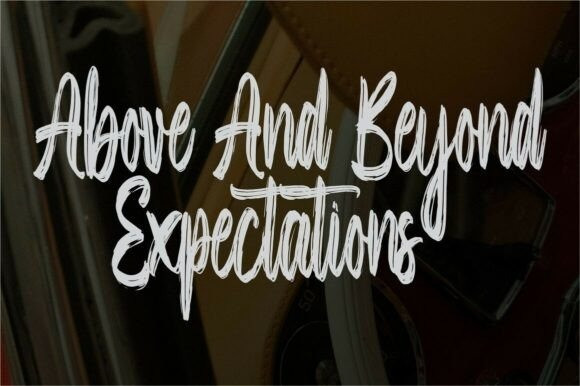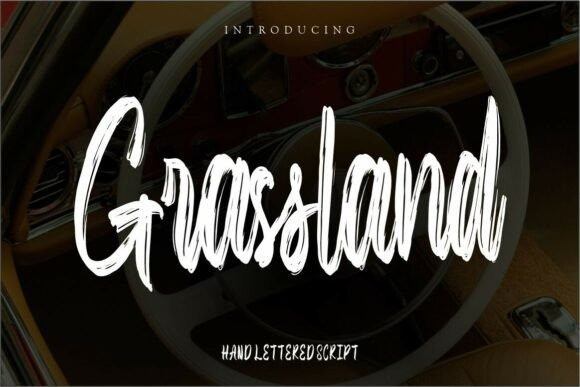
Grassland Brush Typeface
Grassland Brush Typeface, is textured brush font, a contemporary approach to design, with a handmade natural and irregular baseline. Suitable for use in title design. Such as apparel, invitations, book tittles, stationery design, quotes, branding, logos, greeting cards, t-shirts, packaging design, posters and more.